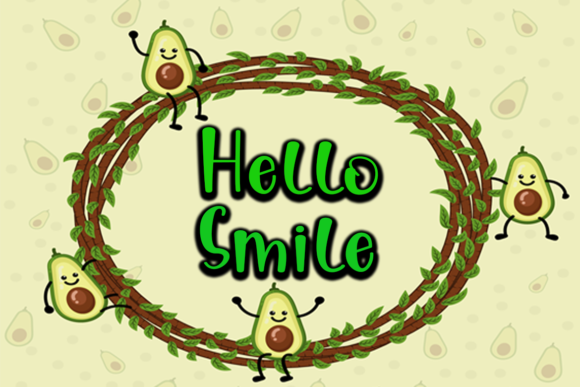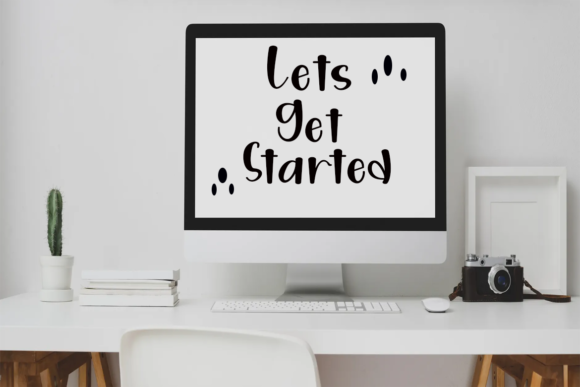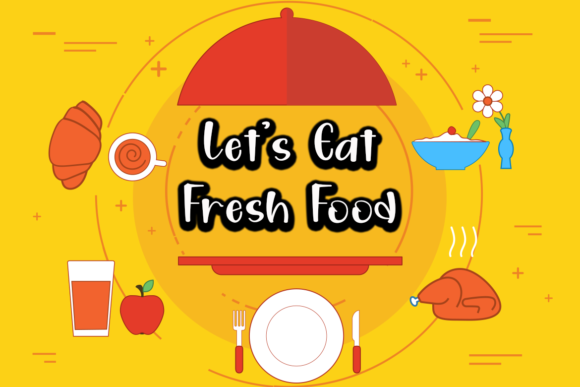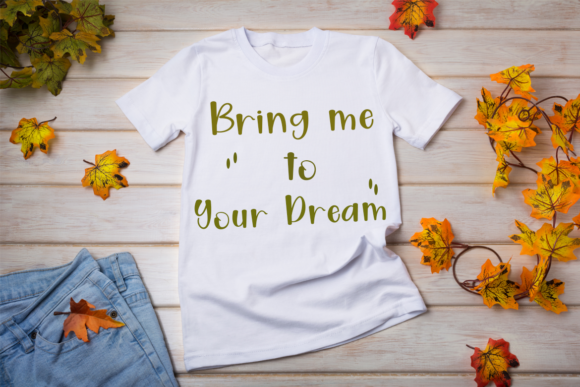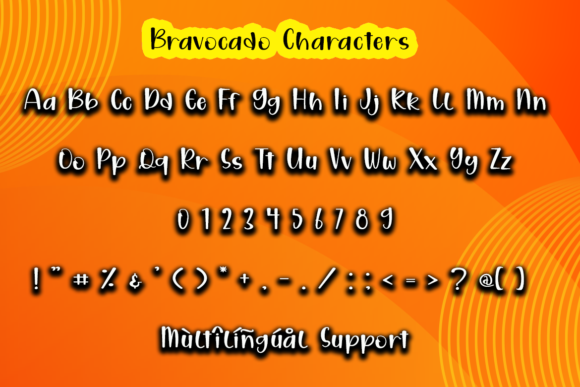
The Bravocado Font: A Game-Changer for Your Creative Projects
I’ll never forget the time I was working on a branding project for a trendy coffee shop. I had the logo design nailed, but I was struggling to find the perfect font to complement it. That’s when I stumbled upon Bravocado, a handwritten font that completely transformed my design. In this article, I’ll share my experience with Bravocado, its features, and how to make the most of it in your creative projects.
An Honest Review of Bravocado
Bravocado is a great handwritten font that’s incredibly versatile, making it perfect for a wide range of designs. Here’s what I love about it:
- ✨ Unique and eye-catching letterforms that add a personal touch to any design
- 💥 Excellent for headlines, titles, and short paragraphs of text
However, no font is perfect, and Bravocado has a few quirks:
- 🤔 Some characters may not work well in all contexts, such as all-caps headings or very small text
- ⚠️ Limited availability of certain OpenType features, such as ligatures or swashes
The Story Behind Bravocado
Bravocado was designed by a talented typographer who wanted to create a font that would bring a touch of personality to digital designs. Inspired by the beauty of handwritten script, Bravocado was crafted to be both elegant and approachable. Whether you’re a designer, crafter, or creative hobbyist, Bravocado is sure to become a favorite in your font collection.
| Font Name | Bravocado Font |
| Author | Supersemar Letter |
| What makes Bravocado stand out from other handwritten fonts? | Bravocado’s unique letterforms, high legibility, and versatility make it a standout in the world of handwritten fonts. |
| Is Bravocado available in different weights or styles? | Bravocado is available in a range of styles, but the exact weights and variations may vary depending on the font package. |